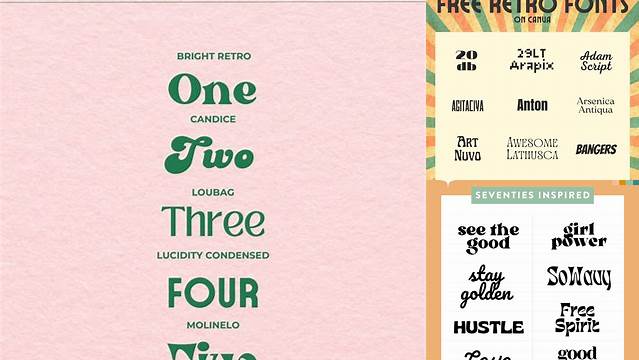
Best Free Retro Fonts On Canva To Spice Up Your Designs
Hey guys! Are you looking to add some vintage flair to your designs? Well, you've come to the right place! Canva is a treasure trove of amazing fonts, and when it comes to retro styles, they've got you covered. In this article, we're going to dive deep into the best free retro fonts on Canva that you can use to create stunning designs that scream nostalgia. From groovy serifs to funky scripts, we'll explore a wide range of options to help you find the perfect fit for your project. So, buckle up and let's get this retro party started!
1. Understanding Retro Font Styles
Before we jump into specific fonts, let's take a moment to understand what makes a font "retro." Retro fonts typically evoke the styles of past decades, from the bold and geometric designs of the 1920s to the psychedelic swirls of the 1970s and the neon-infused aesthetics of the 1980s. Understanding these stylistic nuances is key to selecting the right font for your project. Consider the overall mood and message you want to convey. Are you aiming for a sophisticated vintage vibe or a playful, funky feel? Knowing this will help you narrow down your choices and select the best free retro fonts on Canva that truly capture your vision. When we talk about retro fonts, we aren’t just talking about one specific style; it’s an umbrella term that encompasses a range of different typographic trends from different eras. For example, you might be looking for a font that has the art deco elegance of the 1920s, with its clean lines and geometric shapes. Or perhaps you’re drawn to the mid-century modern aesthetic of the 1950s and 60s, characterized by its playful and futuristic designs. And then there are the groovy fonts of the 1970s, with their rounded serifs and psychedelic vibes.
2. Top Free Retro Serif Fonts on Canva
Serif fonts, with their little decorative strokes at the ends of the letters, can add a touch of class and sophistication to your retro designs. Canva offers a fantastic selection of free retro serif fonts that can transport your audience back in time. Some popular choices include fonts inspired by vintage advertising and classic book typography. These fonts often have a timeless quality, making them perfect for projects that require a touch of elegance. For example, imagine using a retro serif font for a vintage-inspired wedding invitation or a classic book cover. The right serif font can instantly elevate your design and give it a sense of history and authenticity. Some of the best free retro fonts on Canva in this category include those that have a slightly weathered or distressed look, adding to their vintage charm. When choosing a serif font, consider the weight and spacing. A heavier weight can make a bold statement, while a lighter weight can create a more delicate feel. Proper spacing is also crucial for readability, especially in longer texts. Experiment with different combinations to find the perfect balance for your design. Remember, the goal is to create a font pairing that complements your overall aesthetic and enhances the message you’re trying to convey.
3. Best Free Retro Sans-Serif Fonts on Canva
Sans-serif fonts, characterized by their clean and minimalist letterforms, were a staple of mid-century modern design. Canva offers a variety of free retro sans-serif fonts that can bring a cool and contemporary edge to your projects. These fonts are perfect for designs that need a touch of retro without feeling overly fussy. Think sleek logos, bold headlines, and eye-catching posters. Retro sans-serif fonts often have a geometric or slightly rounded appearance, giving them a friendly and approachable vibe. They're also incredibly versatile, working well in both print and digital designs. For instance, a retro sans-serif font can be an excellent choice for a website header, a social media graphic, or even a business card. When selecting from the best free retro fonts on Canva for sans-serif options, pay attention to the font's character width and overall shape. Some sans-serif fonts have a wider, more extended appearance, while others are more condensed. Consider how the font will look in different sizes and contexts. Will it be easily readable in a small paragraph of text? Will it make a strong impact as a large headline? Experiment with different options to see what works best for your specific project. Don't be afraid to mix and match different weights and styles within the same font family to add visual interest.
4. Free Retro Script Fonts on Canva
Script fonts, with their flowing and handwritten style, can add a touch of personality and charm to your retro designs. Canva has a fantastic selection of free retro script fonts, ranging from elegant cursive to playful brushstrokes. These fonts are perfect for adding a personal touch to invitations, posters, and branding materials. Imagine using a retro script font for a vintage-inspired wedding invitation or a boutique logo. The right script font can instantly create a sense of warmth and authenticity. When exploring the best free retro fonts on Canva, you'll find that script fonts often evoke a sense of nostalgia and craftsmanship. They can transport your audience back to a time when handwriting was more common and personal communication was valued. However, it's important to use script fonts sparingly and strategically. Due to their intricate letterforms, they can be challenging to read in large blocks of text. Instead, use them for headlines, subheadings, or short quotes to make a statement without sacrificing readability. Consider the overall tone and style of your project when choosing a script font. A formal cursive script might be perfect for an elegant event, while a more playful brush script could be ideal for a casual and fun brand.
5. Funky Free Retro Display Fonts on Canva
If you're looking to make a bold statement, retro display fonts are the way to go. These fonts are designed to grab attention and add a touch of whimsy to your designs. Canva offers a wide range of free retro display fonts, from psychedelic swirls to geometric wonders. These fonts are perfect for posters, flyers, and any project that needs to stand out from the crowd. Think bold colors, unusual shapes, and a healthy dose of personality. When using retro display fonts, don't be afraid to push the boundaries and experiment with different styles. Some of the best free retro fonts on Canva in this category are inspired by vintage advertising and pop art, making them perfect for creating eye-catching visuals. However, it's important to use display fonts judiciously. Due to their unique and often unconventional letterforms, they can be challenging to read in large blocks of text. Instead, use them sparingly for headlines, logos, or short phrases to maximize their impact. Consider the overall tone and message you want to convey. A psychedelic font might be perfect for a music festival poster, while a geometric font could be ideal for a modern art exhibition. The key is to choose a font that complements your design and enhances your message.
6. Combining Retro Fonts Effectively
Choosing the right fonts is just the first step. To truly nail the retro aesthetic, you need to combine fonts effectively. This means pairing different fonts that complement each other and create a cohesive visual experience. A classic approach is to pair a retro serif font with a sans-serif font. This creates a nice contrast and adds visual interest to your design. For example, you might use a bold serif font for your headline and a clean sans-serif font for your body text. Another approach is to pair a script font with a simpler font, such as a sans-serif or a geometric font. This can add a touch of elegance and personality without sacrificing readability. When combining fonts, it's important to consider the overall tone and style of your project. Do you want to create a sophisticated vintage look or a playful, funky feel? The fonts you choose should reflect your desired aesthetic. Don’t be afraid to mix and match different styles, but make sure there’s a clear hierarchy and visual harmony. When exploring the best free retro fonts on Canva, try experimenting with different combinations to see what works best. Pay attention to the weight, size, and spacing of each font. A well-balanced font pairing can elevate your design and make it more engaging. Remember, the goal is to create a visual experience that is both stylish and easy to read.
7. Using Retro Fonts for Logos
A retro font can be a fantastic choice for a logo, especially if you want to convey a sense of nostalgia or vintage charm. However, it's important to choose a font that is both visually appealing and legible, even in small sizes. A bold serif or sans-serif font can be a great option for a logo, as it will stand out and be easy to read. A script font can also work well, but it's crucial to choose one that is not too intricate or difficult to decipher. When using a retro font for a logo, consider the overall brand identity and message. Does the font align with the brand's values and target audience? A retro font can be particularly effective for brands that want to evoke a sense of history, craftsmanship, or authenticity. For example, a vintage-inspired coffee shop might choose a retro script font for its logo, while a classic barbershop might opt for a bold serif font. When selecting from the best free retro fonts on Canva for logo design, pay attention to the font's scalability. Will the logo look good in different sizes, from a small business card to a large banner? Test the font in various contexts to ensure it remains legible and impactful. Remember, your logo is the face of your brand, so it's essential to choose a font that represents your identity and values.
8. Best Retro Fonts for Social Media Graphics
Social media is a visual medium, so your graphics need to grab attention and stand out from the crowd. Retro fonts can be an excellent way to add personality and flair to your social media posts. Whether you're creating an Instagram story, a Facebook ad, or a Twitter header, a retro font can help you make a statement. When choosing a retro font for social media, consider the platform's visual style and the overall message you want to convey. For example, Instagram is a platform that celebrates creativity and individuality, so you might opt for a bold and eye-catching font. Facebook, on the other hand, is often used for more formal communication, so you might prefer a more classic and legible font. When choosing from the best free retro fonts on Canva for social media, pay attention to the font's readability on different devices. Social media content is often viewed on small screens, so it's crucial to choose a font that is clear and easy to read, even in small sizes. Experiment with different font sizes and styles to see what works best for your specific platform and content. Don't be afraid to mix and match different fonts to create a visually appealing and engaging design. Remember, your social media graphics are a reflection of your brand, so it's essential to choose fonts that represent your identity and values.
9. Retro Fonts for Posters and Flyers
Posters and flyers are all about making a statement, and retro fonts can be a fantastic way to grab attention and create a memorable design. Whether you're promoting a concert, an event, or a product, a retro font can help you evoke a sense of nostalgia and create a visually appealing message. When choosing a retro font for posters and flyers, consider the overall tone and style of your project. Do you want to create a vintage-inspired feel, a playful and funky vibe, or a bold and eye-catching design? The font you choose should reflect your desired aesthetic. For example, a 1970s-inspired music festival poster might use a psychedelic script font, while a classic film screening flyer might opt for a bold serif font. When exploring the best free retro fonts on Canva, think about the font's impact and readability from a distance. Posters and flyers are often viewed from afar, so it's crucial to choose a font that is clear and easy to read, even from a distance. Experiment with different font sizes and styles to see what works best for your specific project. Don't be afraid to use bold colors and graphic elements to enhance your retro design. Remember, the goal is to create a poster or flyer that stands out and captures your audience's attention.
30. The Enduring Appeal of Retro Fonts
Why do retro fonts continue to captivate designers and audiences alike? There's something inherently appealing about the styles of the past. Retro fonts evoke a sense of nostalgia, craftsmanship, and authenticity. They connect us to different eras and cultural movements, reminding us of simpler times. Retro fonts can add personality and character to designs, making them more engaging and memorable. They offer a unique alternative to the often-sterile and predictable fonts used in contemporary design. As you explore the best free retro fonts on Canva, think about why you're drawn to them. What emotions do they evoke in you? How can you use them to create designs that resonate with others? The enduring appeal of retro fonts lies in their ability to transport us to another time and place, and to communicate a sense of history and style. And that's a pretty powerful thing.